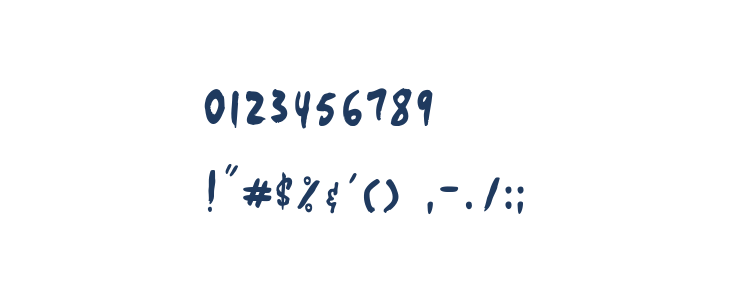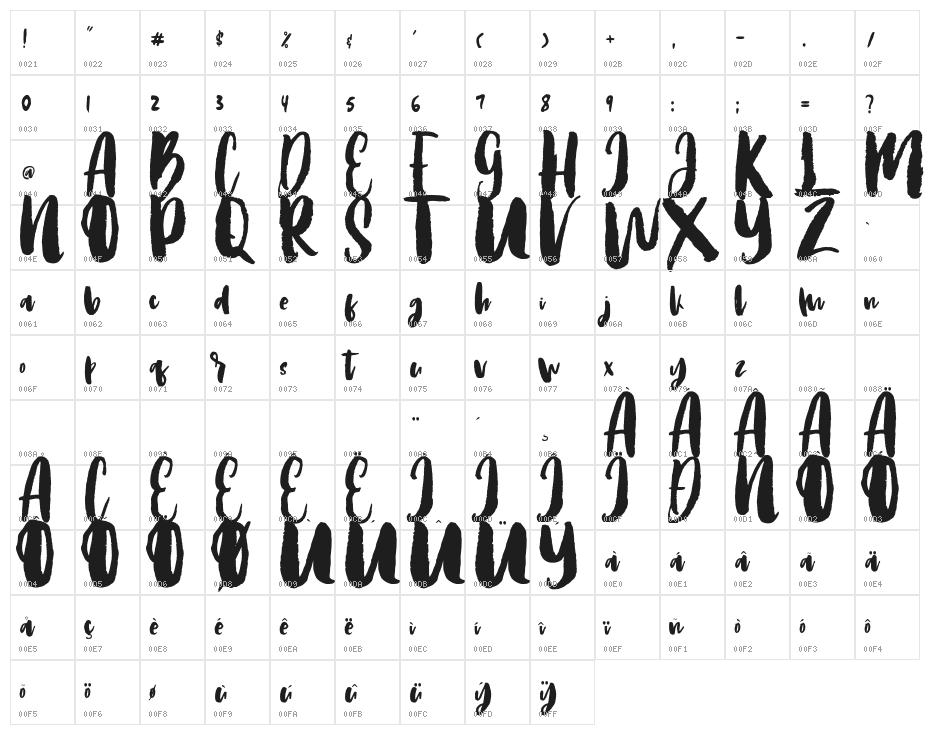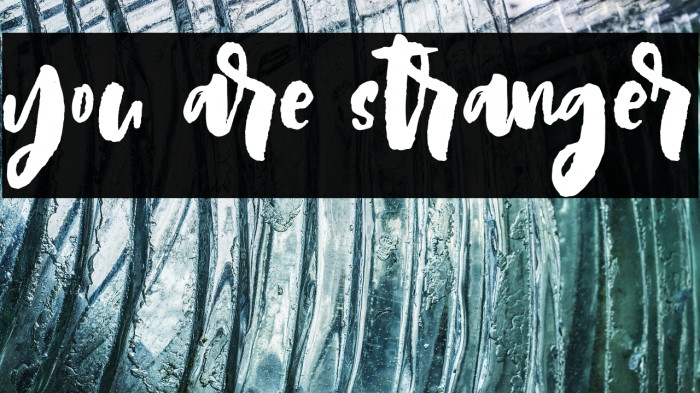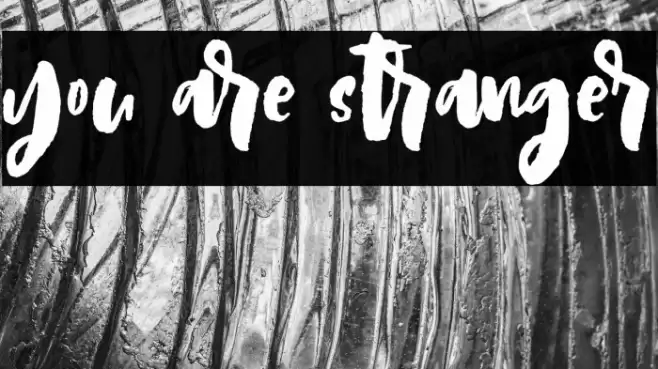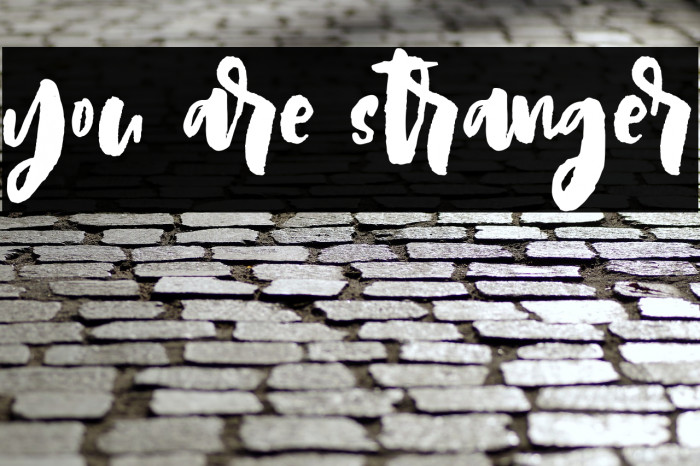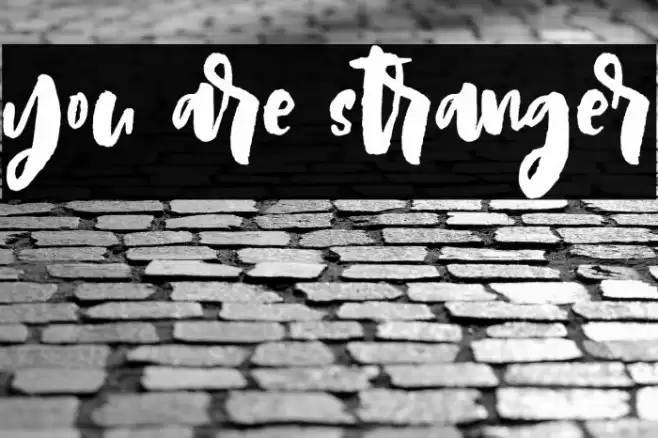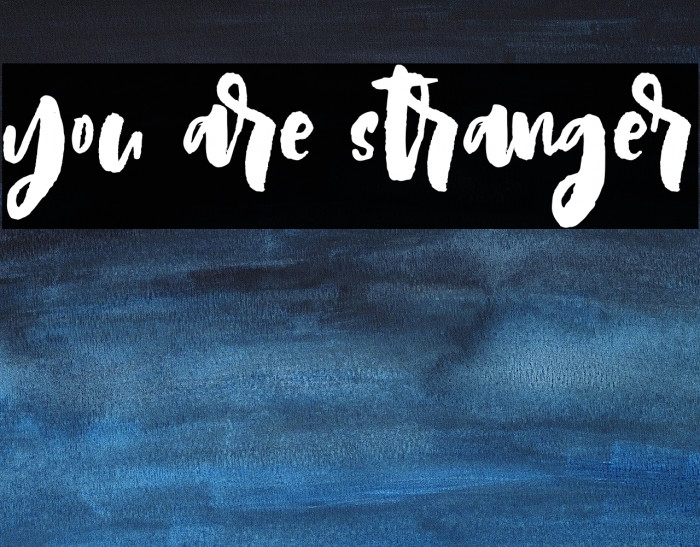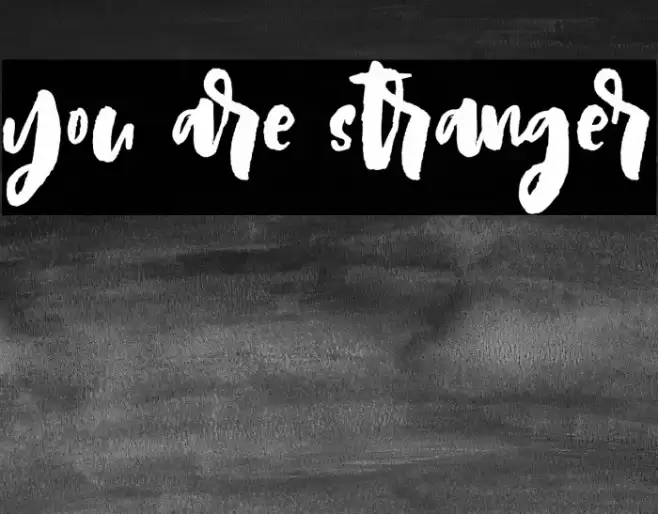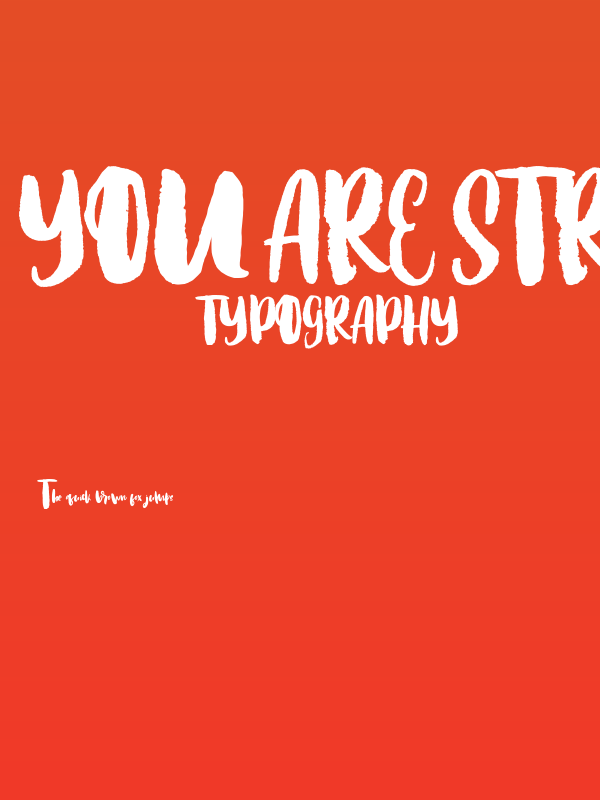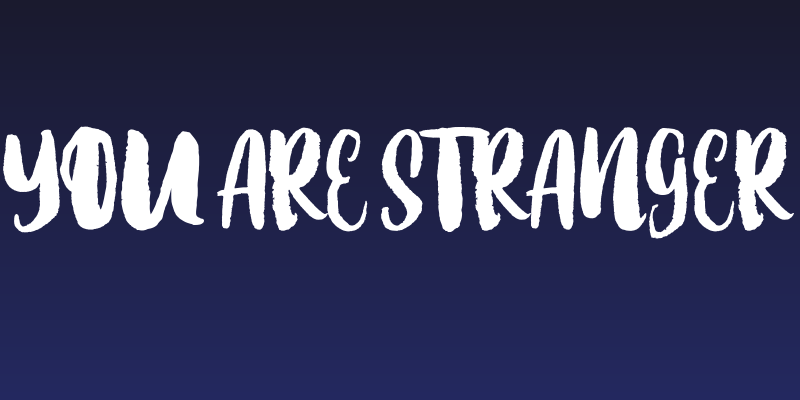
you are stranger Font
you are stranger Description
This font features a bold and expressive handwritten style, characterized by its thick, brush-like strokes and dynamic flow. The uppercase and lowercase letters exhibit a playful yet sophisticated appearance, making it suitable for creative and artistic projects. The numbers and special characters maintain the same energetic style, ensuring consistency across all text elements. The font's organic and fluid design adds a personal touch, making it ideal for projects that require a humanistic and approachable feel.
| Proposed Projects | Ideal for branding, invitations, greeting cards, and artistic posters. |